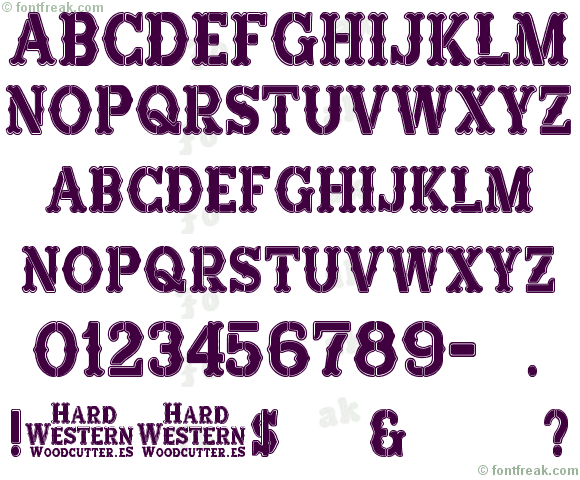
Hard Western
The Hard Western font, crafted by woodcutter Manero, is a striking display typeface that embodies the rugged charm of the American West. This font features bold, serif characteristics with pronounced stroke weights that create a commanding presence. The contrasting thick and thin lines evoke a sense of dynamism, while the slightly distressed finish adds a rustic touch, making it perfect for capturing the essence of traditional Western aesthetics. The spacing is well-balanced, ensuring legibility even at larger sizes, which enhances its usability for various applications.
Hard Western excels in a variety of creative projects. It is an ideal choice for movie posters, especially those with Western themes or adventurous storylines, as it effectively conveys the grit and excitement of the genre. Additionally, this font can elevate restaurant menus, particularly those in steakhouses or BBQ joints, where a rustic vibe is essential. Wedding invitations that seek a unique flair can also benefit from Hard Western’s distinct character, providing a memorable aesthetic that stands out to guests. Furthermore, graphic designers and content creators can utilize this typeface in branding projects that aim to evoke authenticity and a connection to nature.
Targeting graphic designers, small business owners, and content creators, the Hard Western font serves as a versatile tool for those looking to infuse their work with a sense of adventure and nostalgia. Its freeware license makes it accessible for anyone wishing to incorporate this dynamic typeface into their designs.
In conclusion, the Hard Western font stands out due to its unique blend of boldness and rustic charm, making it a must-have for anyone looking to add a touch of Western flair to their projects. For those interested in enhancing their designs, the Hard Western font free download offers an opportunity to explore this captivating typeface without any cost.